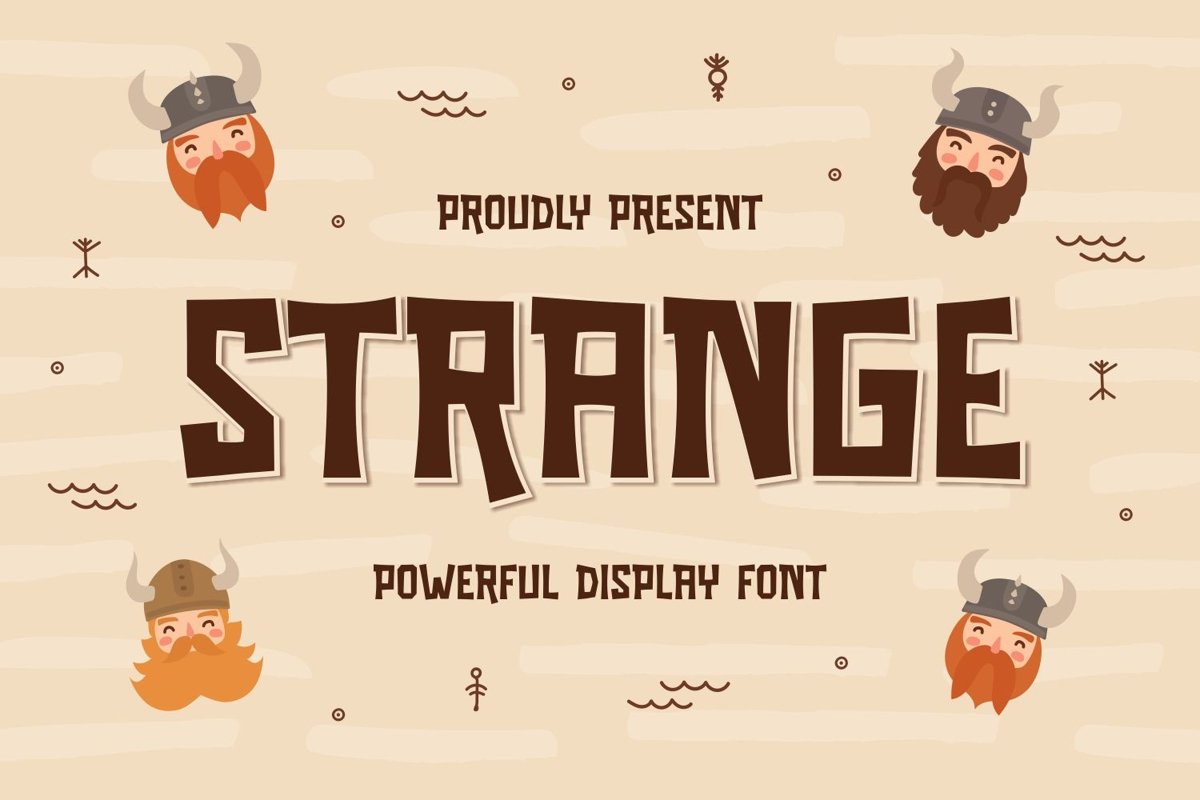
Strange is san serif display come with viking themes. We wanted to create the most clean and simple character. It matches applies in some designs such as the logotype, brand, packaging, quotes, cute poster, kids shirt, cover book, birthday invitation and more custom design. The features uppercase, lowercase, numeral, punctuation & symbol, multilingual support.